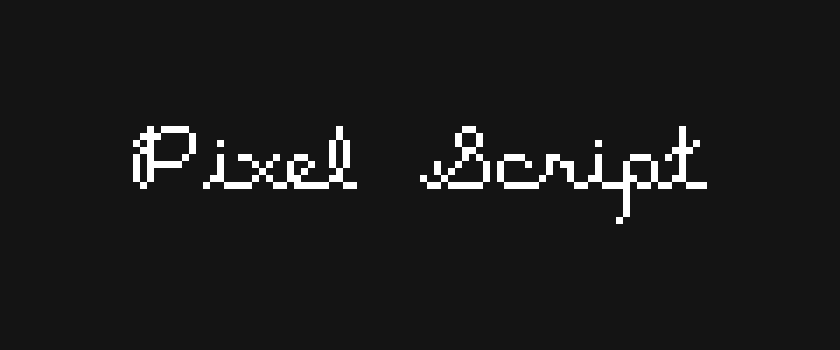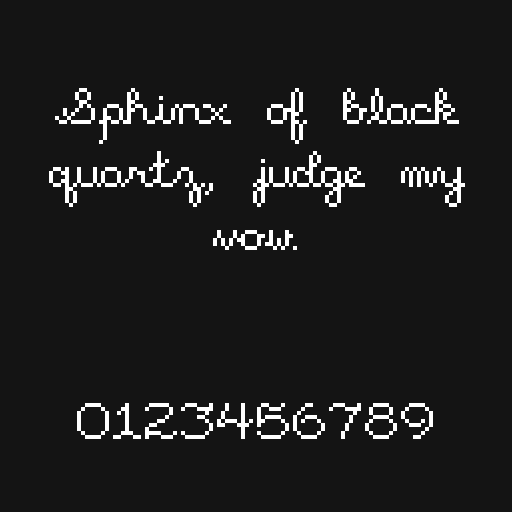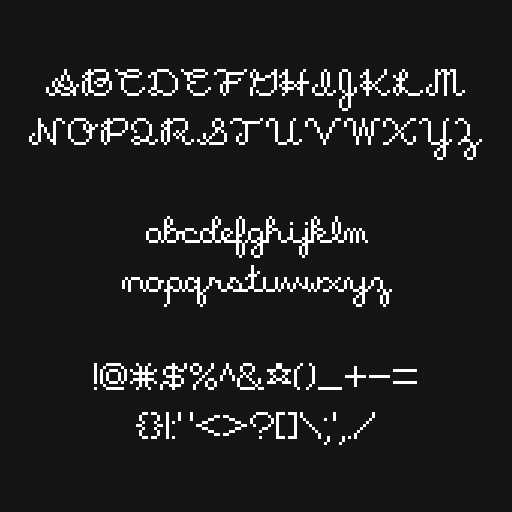
Pixel Script - Pixel Font
Pixel Script
• A small cursive-style pixel font — cute, simple and playful.
Size
• Height: 14px | Average Width: ~10px (variable)
• Best used at multiples of its height to preserve proper pixelation.
Styles
• Regular
This is a lovely font, but the kerning needs a bit of work--especially regarding how uppercase letters appear alongside lowercase ones. It is most noticeable with the capital "T", but a few other problematic ones are "L", "F", "N", and "V".
Adding some ligatures (like "Th" and "Ta / Te / Ti / To / Tu / Ty" etc.) would be extremely helpful. This font would be great to use as handwritten signatures for in-game notes and such, which makes it especially important that uppercase and lowercase work well together.
The lowercase "o" does not always connect with letters to its right (try typing "void", "cow", "open", and "lost" to see what I mean).
The lowercase "r" does not connect properly when to the right of "w" or "b" (type "wren" and "brown" to see what I mean). This could be another area where ligatures may help.
If those issues are resolved, this will legit become my all-time favorite pixel font - it really is lovely, and I'll check back periodically to see if it gets updated. Thank you for making it! Very happy with the entire pixel font bundle, this is the only font that gave me any issues whatsoever.